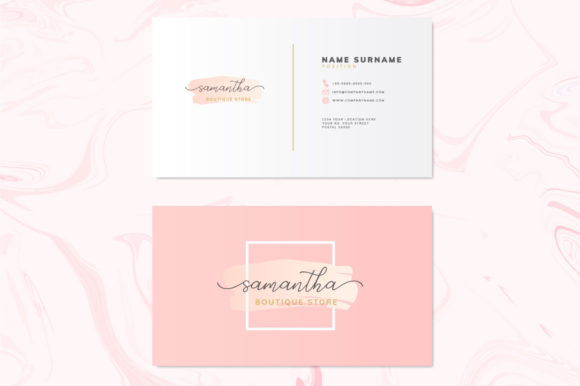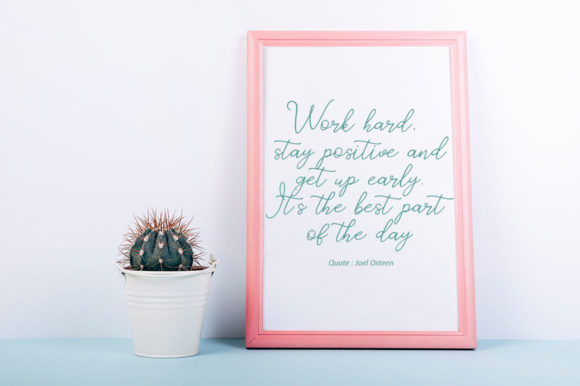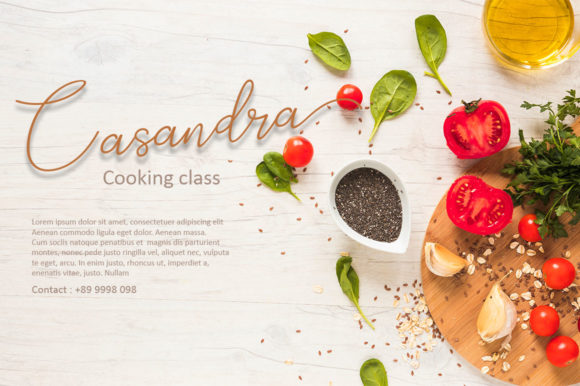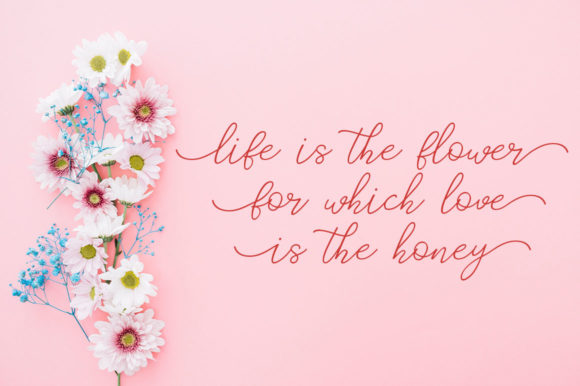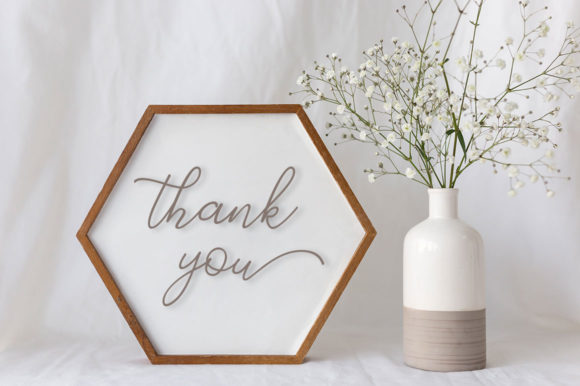
Catherine Font: Elevate Your Design with a Touch of Romance
Are you a designer or crafter looking for a font that can add a touch of elegance and romance to your projects? Look no further than Catherine Font. This beautiful, handwritten font is designed to bring a sense of delicacy and authenticity to your designs, making it perfect for a wide range of creative endeavors.
What is Catherine Font?
Catherine Font is a light, delicate, and authentic handwritten font that exudes a romantic feel. Its unique and elegant design makes it an excellent choice for designers and crafters who want to add a touch of sophistication to their work. With Catherine Font, you can turn any design project into a stunner that will leave a lasting impression on your audience.
Key Features of Catherine Font
- Light and delicate design: Catherine Font features a light and delicate design that is perfect for creating elegant and sophisticated designs.
- Authentic handwritten feel: This font has an authentic handwritten feel that gives it a personal and unique touch.
- Romantic and elegant: Catherine Font is designed to evoke a sense of romance and elegance, making it perfect for designs that require a touch of sophistication.
- Versatile: This font is versatile and can be used for a wide range of design projects, from wedding invitations to branding and packaging.
Why Choose Catherine Font?
There are many reasons why Catherine Font is an excellent choice for designers and crafters. Here are a few:
- Unique and distinctive: Catherine Font has a unique and distinctive design that will set your designs apart from the rest.
- Easy to read: Despite its delicate design, Catherine Font is easy to read, making it perfect for body text and other applications where readability is important.
- High-quality: This font is designed to high-quality standards, ensuring that it will look great in any design project.
How to Use Catherine Font
Catherine Font can be used for a wide range of design projects, including:
- Wedding invitations and stationery: This font is perfect for creating beautiful and elegant wedding invitations and stationery.
- Branding and packaging: Catherine Font can be used to create unique and eye-catching branding and packaging designs.
- Signage and displays: This font is also great for creating signage and displays that require a touch of elegance and sophistication.
Tips for Using Catherine Font
Here are a few tips for using Catherine Font:
- Use it sparingly: Catherine Font is a delicate font, so it’s best to use it sparingly to avoid overwhelming the design.
- Pair it with other fonts: This font pairs well with other fonts, so feel free to experiment with different combinations to find the perfect look.
- Experiment with colors: Catherine Font looks great in a variety of colors, so don’t be afraid to experiment and find the perfect color scheme for your design.
Catherine Font is a beautiful and elegant handwritten font that is perfect for designers and crafters who want to add a touch of romance and sophistication to their designs. With its light and delicate design, authentic handwritten feel, and versatile nature, this font is sure to become a favorite in your design arsenal. So why wait? Download Catherine Font today and start creating stunning designs that will leave a lasting impression on your audience.